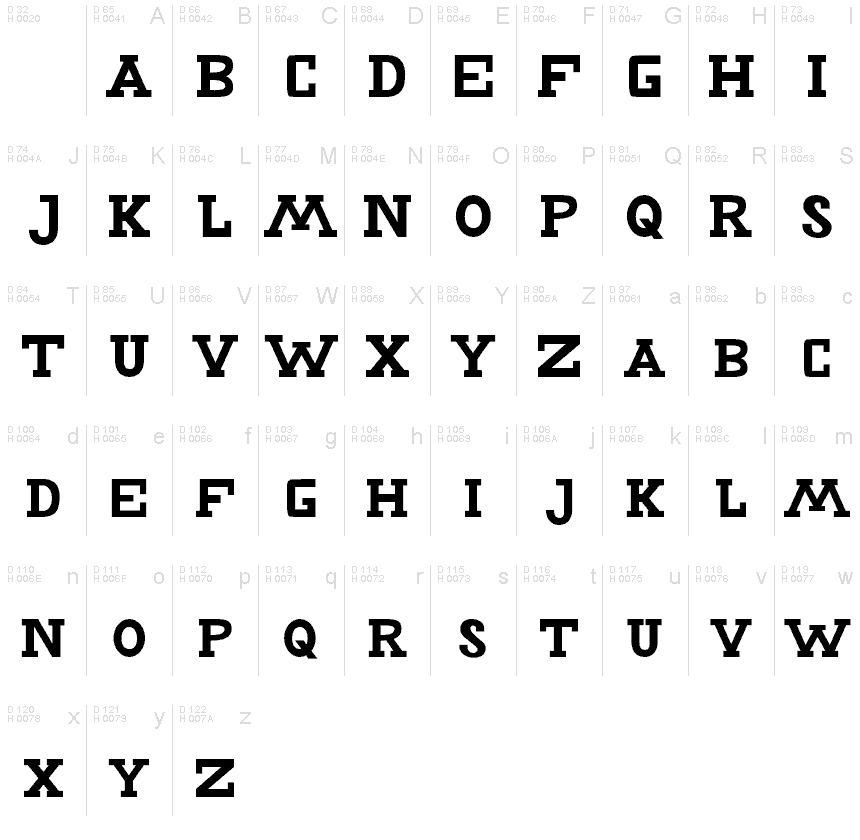
Hicked Demo Regular
Hicked font by Craft Supply Co. is a modern font with an industrial aesthetic, elevated by expanded letter formations and an impactful presence that calls attention center stage. A robust structure is established by the added mass of its letterforms, which ensures a strong visual impact whenever used.
Use this free slab-serif font in poster design, business cards, brochures, and branding projects of great importance like packaging and advertising. Headers within websites and applications will also benefit when using Hicked in both print and digital media alike.